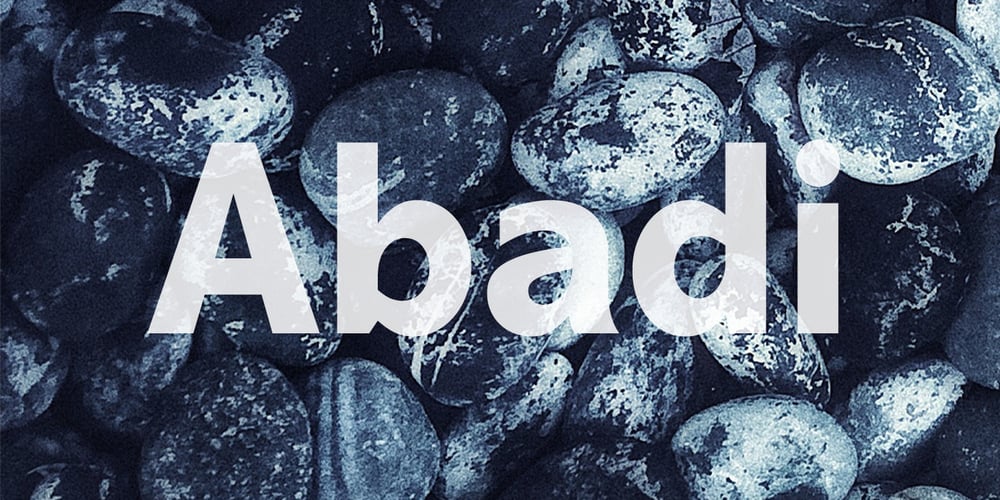
Abadi Font Family was designed by Ong Chong Wah and published by Monotype. Abadi contains 14 styles and family package options. Designed by Malaysian designer, Ong ChongWah, Abadi is a versatile sans serif typeface whose style lies between the humanist Gill Sans and the more rigid lineales such as Monotype Grotesque and Helvetica. These humanist characteristics give the Abadi fonts a friendliness in use and contribute as much to its legibility as the generous ‘x’ height. The italic font relates to the roman, yet has sufficient character to be effectively used independently. The range of weights and widths available give Abadi a wide spectrum of graphic applications, from small quantities of text in magazines and newspapers, to display use in packaging, advertising and even television.